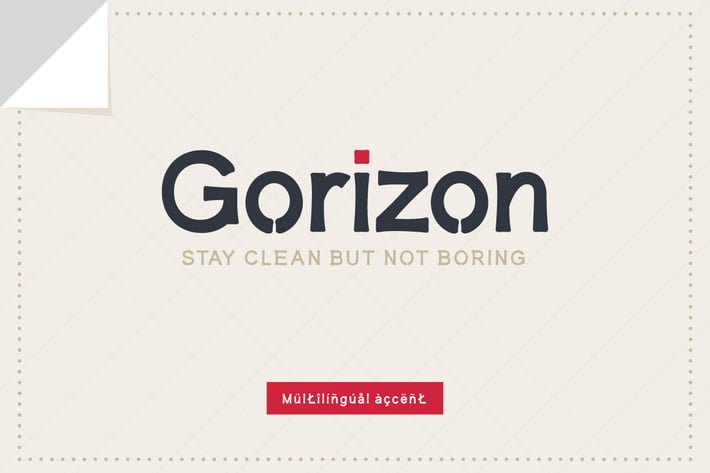
Gorizon Sans Serif Font
Introducing you GORIZON, a modern clean sans serif font. This font is suitable for book title, movie title, banner, flyer, magazine, merchandise, etc. This font has lowercase and uppercase style. Try this font and feel the modern ambience of the word! :)